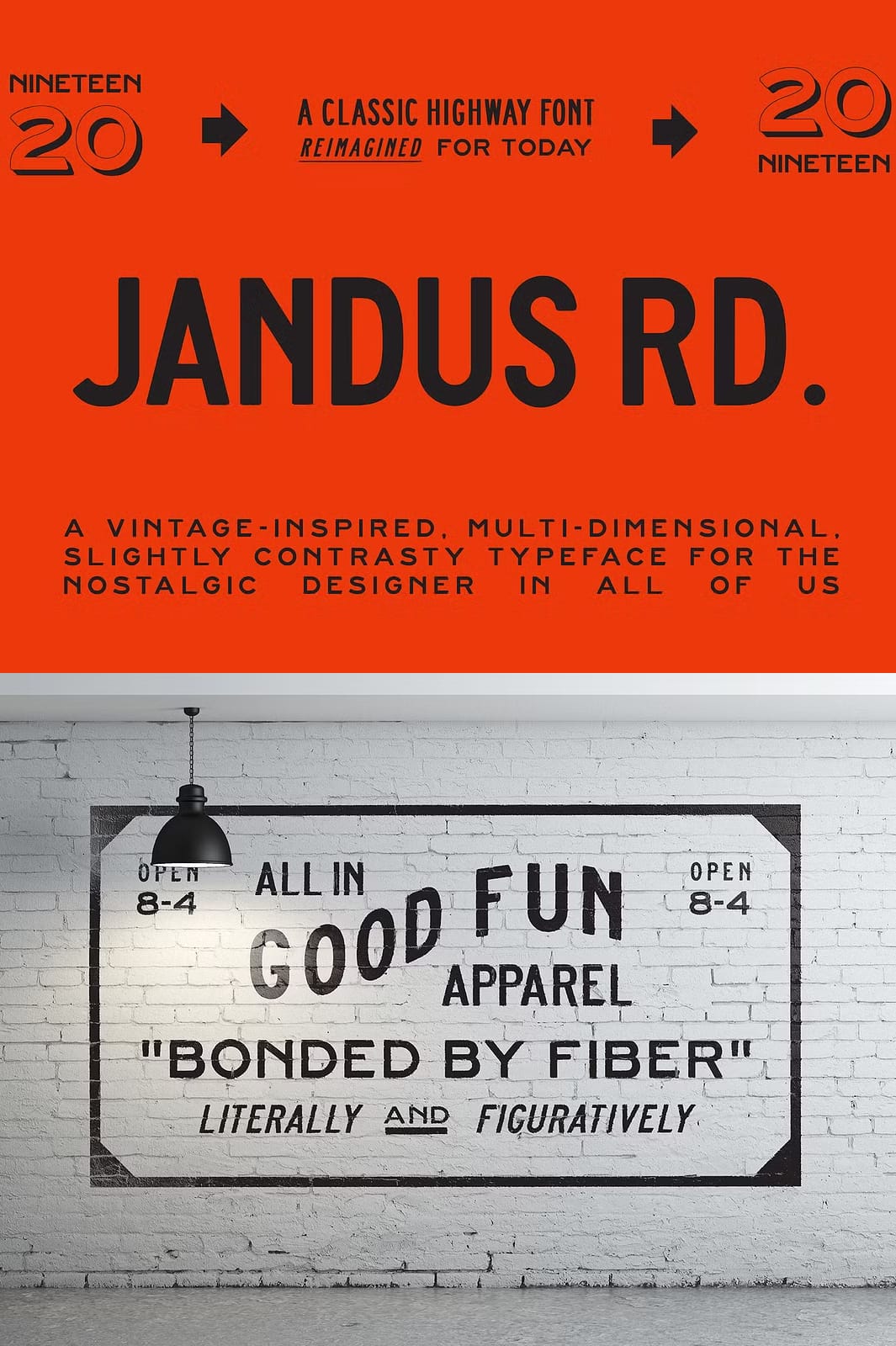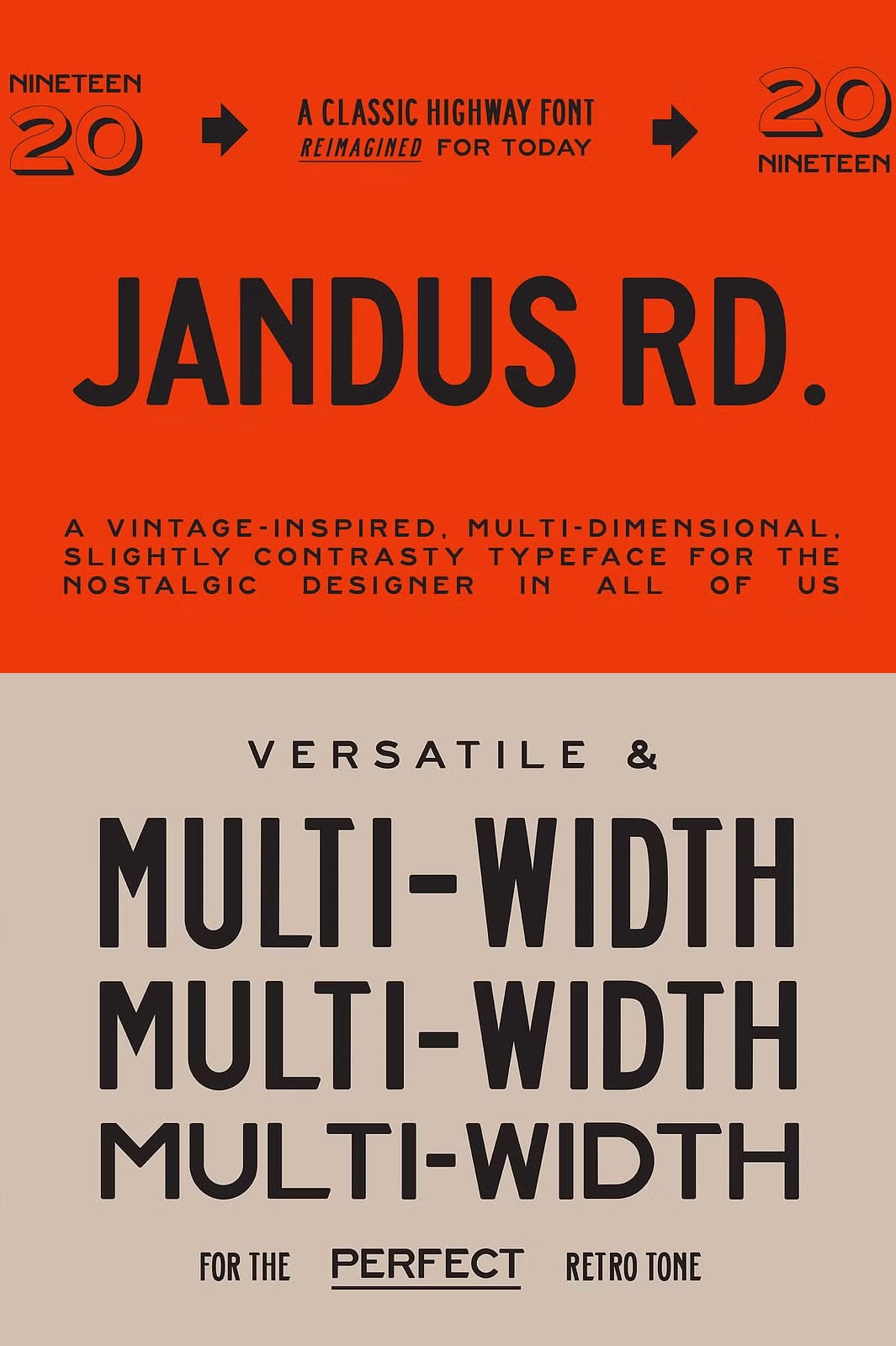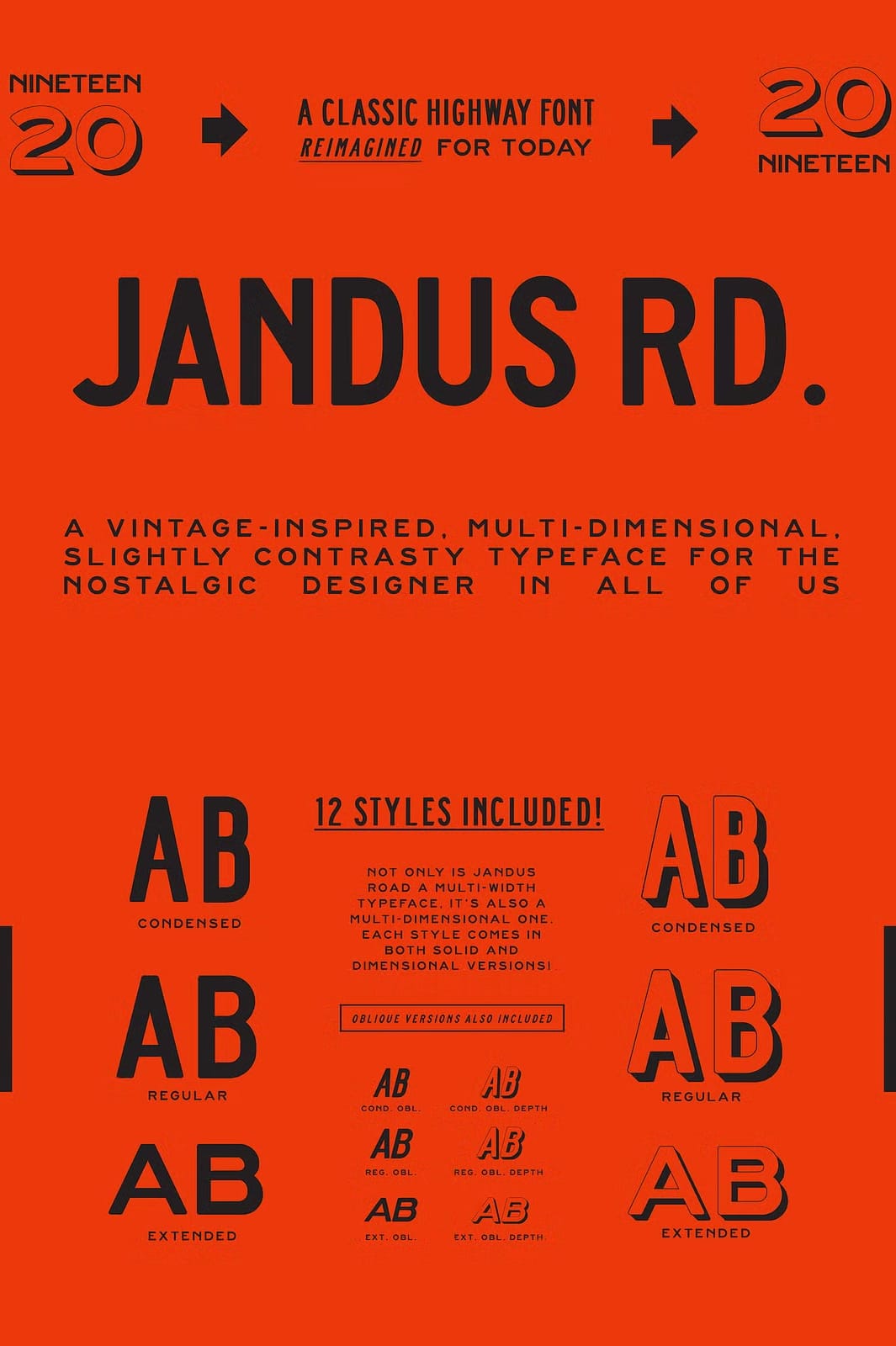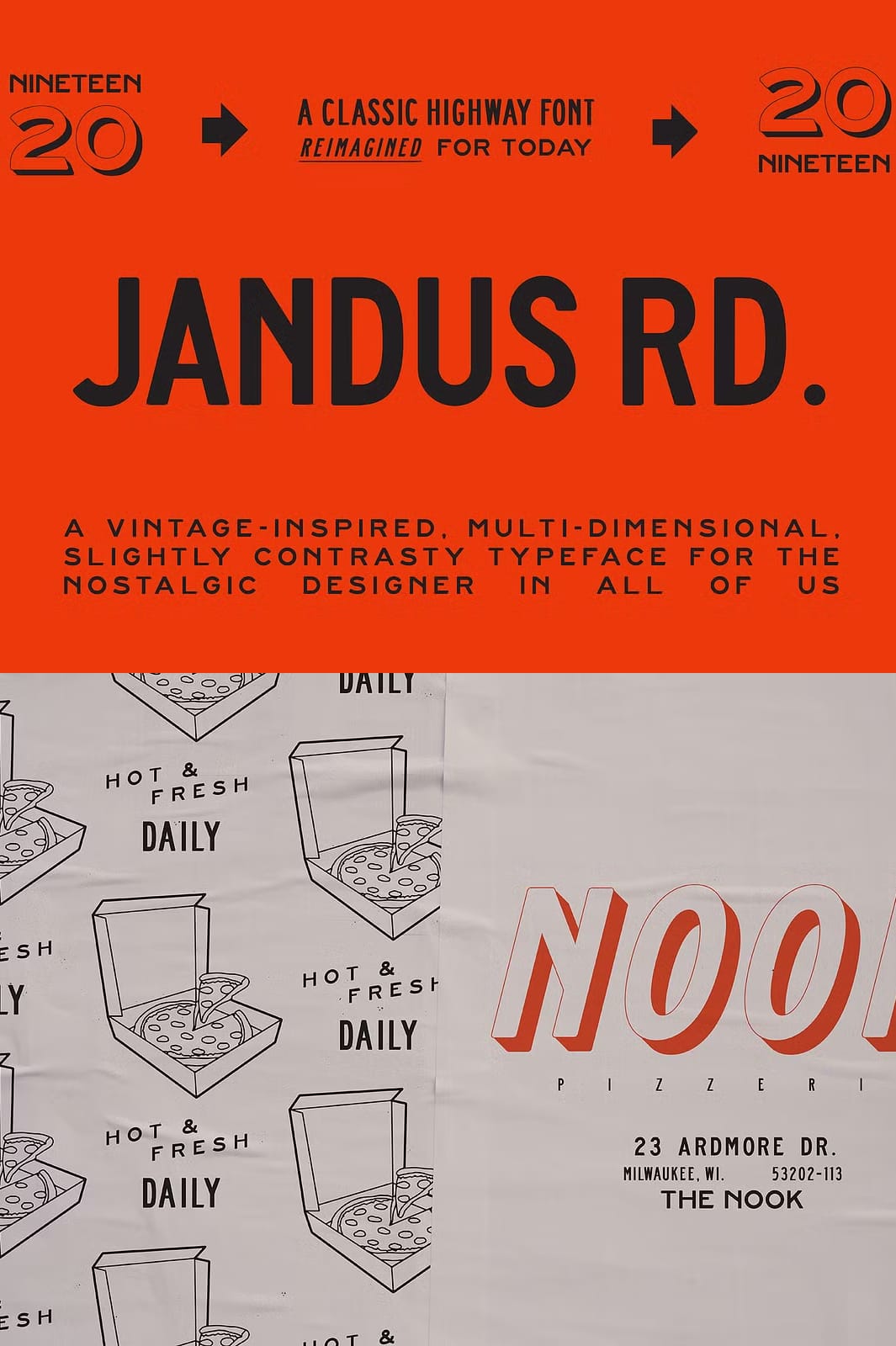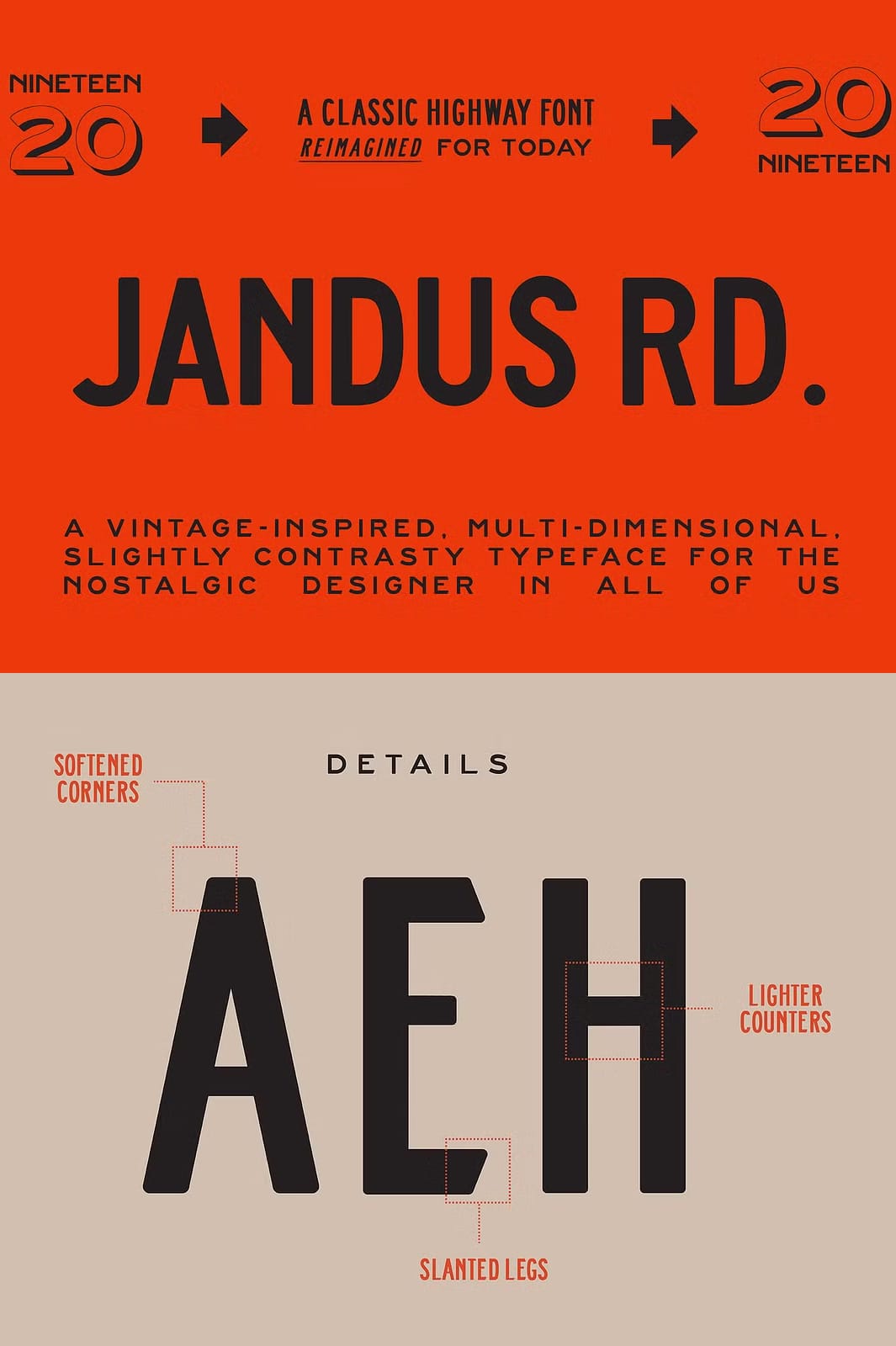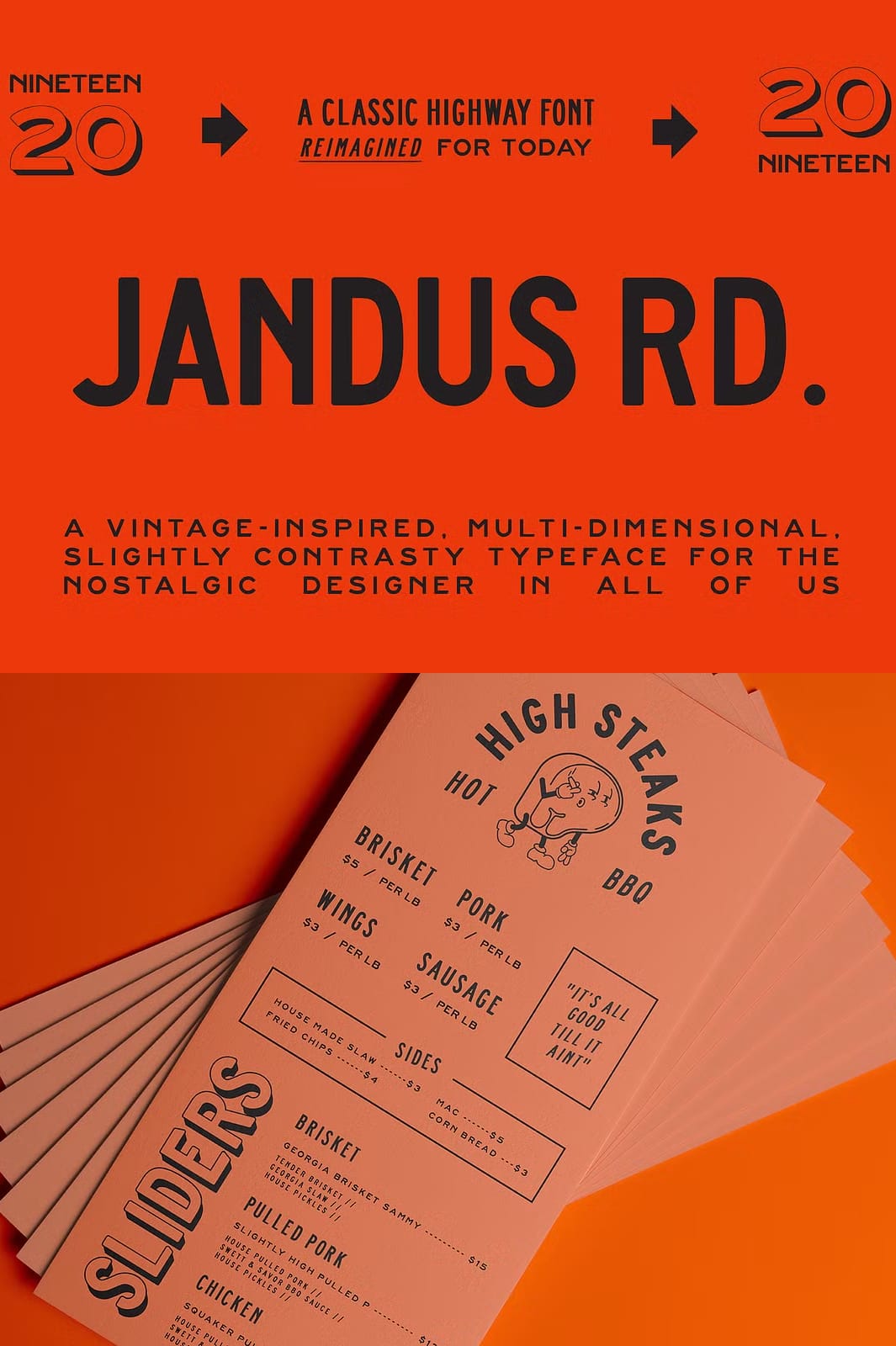
Jandus Road – A Highway Display Font
Why Choose a Highway‑Inspired Font for Modern Branding and Packaging Projects
Designers constantly search for typefaces that combine legibility with unmistakable personality. Jandus Road delivers exactly that balance. Born from the iconic US Highway signage system, the font retains the clarity required for road signs while embracing mid‑century flair. The result is a typeface that commands attention on shelves, billboards, and digital screens without sacrificing readability.
Active Design Features That Empower Your Creative Workflow and Accelerate Production
Every glyph in Jandus Road has been meticulously refined to speed up decision‑making. The softened corners, slanted leg details, and raised counters create a visual rhythm that guides the eye, reducing the need for manual kerning adjustments. By choosing this family, you instantly gain a cohesive visual language that works across a wide range of applications—from product packaging to logo design—allowing you to focus on concept development rather than typographic fine‑tuning.
Complete Style Set: Twelve Distinct Weights and Widths for Maximum Flexibility
The family includes twelve thoughtfully designed styles, each engineered to maintain consistency while offering diverse visual options. Whether you need a compact headline, a bold statement, or a three‑dimensional depth effect, Jandus Road provides a ready‑made solution.
List of Available Styles with Their Primary Uses
• Regular – Clean, straightforward text for body copy or secondary headings.
• Oblique – Adds subtle motion, ideal for call‑to‑action buttons.
• Depth (3D effect) – Gives a tactile feel for packaging mock‑ups.
• Oblique Depth (3D effect) – Combines slant and depth for dynamic titles.
• Condensed – Saves horizontal space while preserving legibility.
• Condensed Oblique – Perfect for tight layouts needing emphasis.
• Condensed Depth (3D effect) – Enables bold, space‑efficient statements.
• Condensed Oblique Depth (3D effect) – Adds energy to compact headings.
• Extended – Expands the visual presence for large‑scale signage.
• Extended Oblique – Introduces movement to extended displays.
• Extended Depth – Provides depth on wide banners and posters.
• Extended Oblique Depth (3D effect) – Maximizes impact on monumental designs.
Design Heritage: From US Highway Signage to Contemporary Retro Aesthetics
The inspiration behind Jandus Road lies in the utilitarian typography historically used on traffic control devices across the United States. Those letterforms were engineered for maximum legibility at high speeds and varying light conditions. By softening corners, introducing subtle width variations, and incorporating vintage‑style details, the typeface transforms utilitarian roots into a stylish, retro‑infused visual language that resonates with modern audiences.
Key Visual Characteristics That Differentiate Jandus Road
• High x‑height ensures readability at small and large sizes.
• Balanced stroke contrast reduces visual fatigue in long passages.
• Raised counters create a sense of openness and depth.
• Slanted leg details inject kinetic energy without compromising clarity.
Creative Applications: From Retro Packaging to Bold Brand Identities
Use Jandus Road to craft memorable brand assets that echo mid‑century modernism while staying unmistakably legible. Ideal scenarios include: vintage‑styled cereal boxes, boutique wine labels, automotive posters, and high‑impact web headers. Pair the font with muted color palettes to let the letterforms shine, or contrast it with bright hues for a pop‑culture vibe.